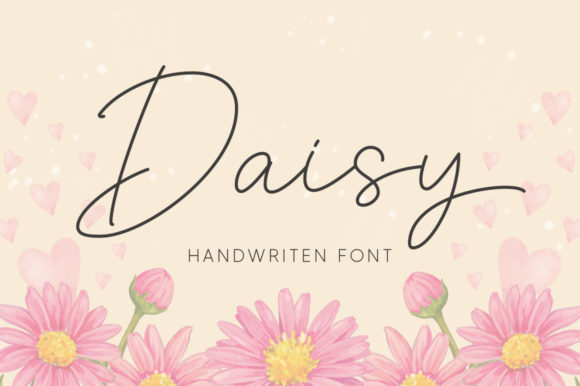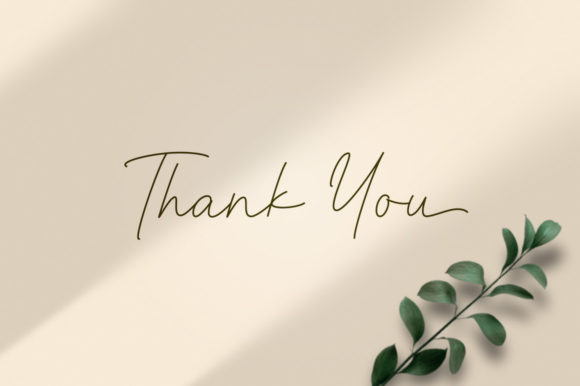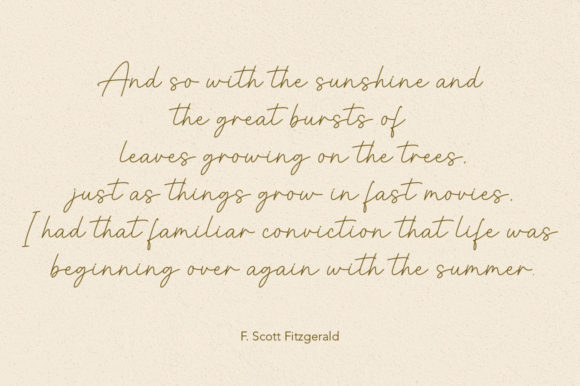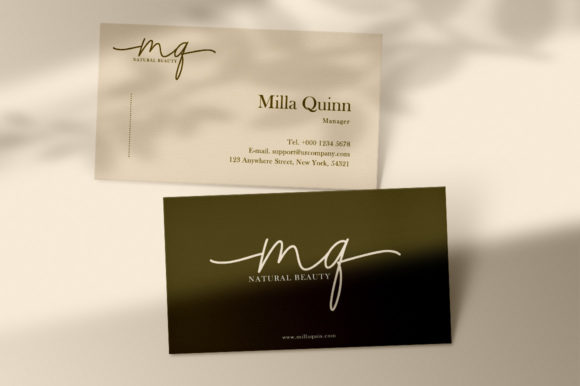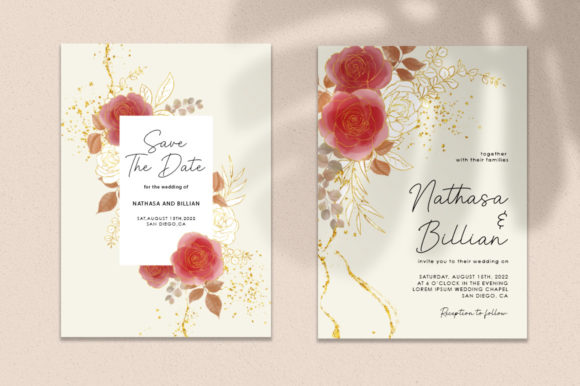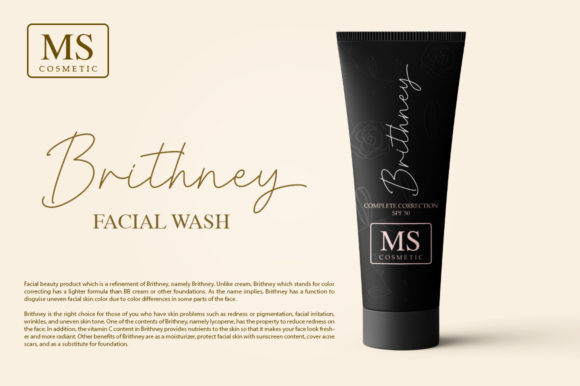
Daisy Font
About Daisy Font
Daisy is a dainty and flowing handwritten font.Sweet and joyful, this font will be ideal for writing wedding invitations, cards or any other design that may need a romantic, personalized touch! Daisy is PUA encoded which means you can access all of the glyphs and swashes with ease! â€¨